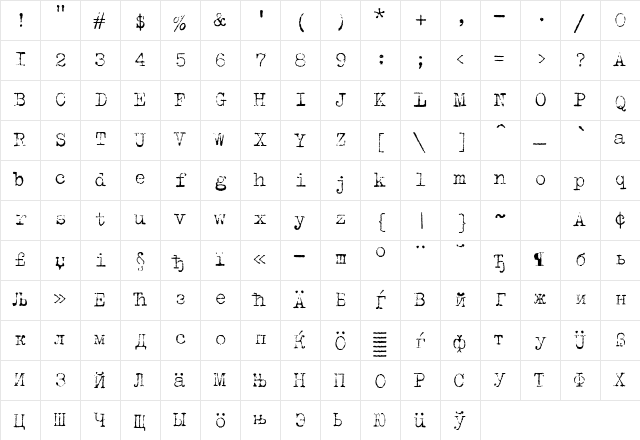
Complete TrixieCyrG Light glyph index. Displaying only characters natively supported by TrixieCyrG Light font.
TrixieCyrG is a composed and adaptable typeface that performs quietly and consistently across a wide range of design contexts. Its slender proportions lend an understated elegance to any composition.
Who designed the TrixieCyrG Light font?
This font was published by Copr. LettError Erik van Blokland, FontShop International. Check the technical specs section for copyright and designer details.